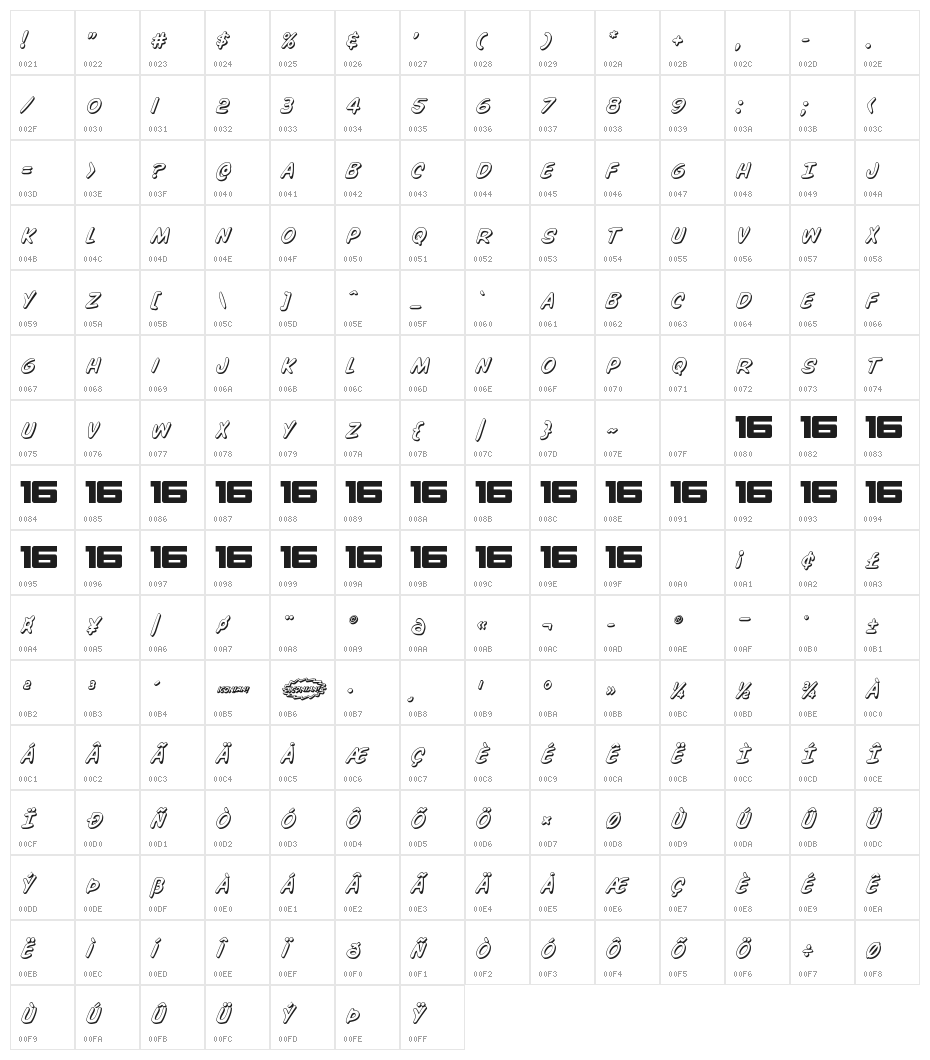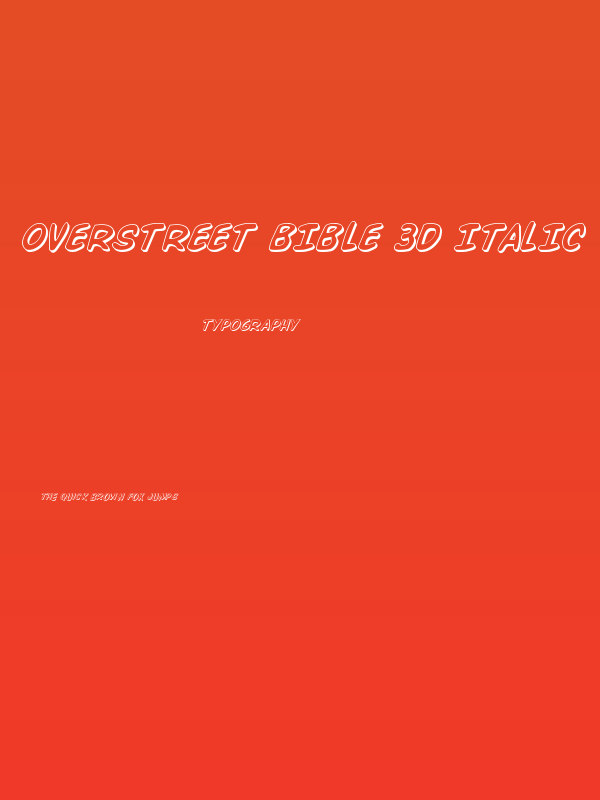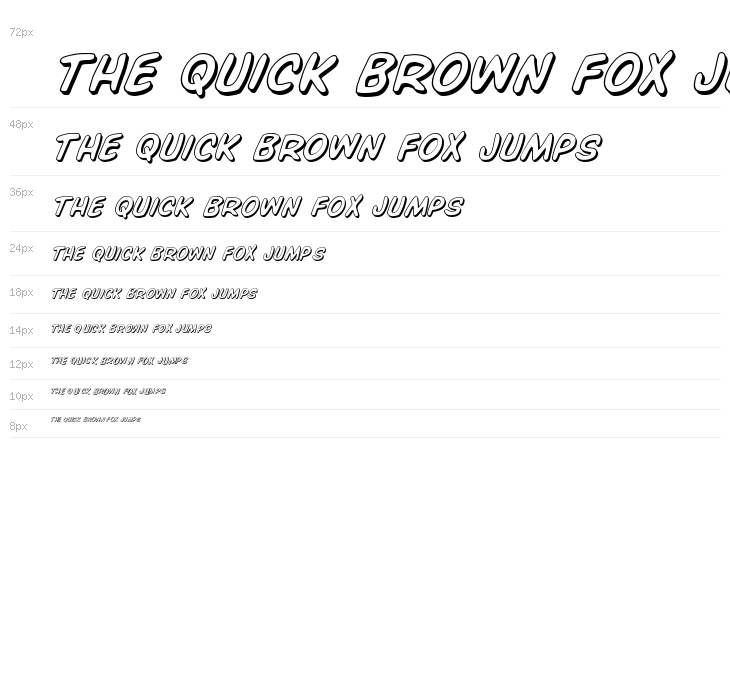
Overstreet Bible 3D Italic Font
Overstreet Bible 3D Italic Description
This font features a bold, italicized style with a three-dimensional effect, giving it a dynamic and eye-catching appearance. The letters are outlined, creating a shadow-like effect that enhances the 3D illusion. The characters are rounded and smooth, contributing to a playful and approachable feel. The font maintains consistent thickness throughout each character, ensuring readability while adding a touch of modern flair. Its boldness and unique style make it suitable for attention-grabbing headlines and creative projects.